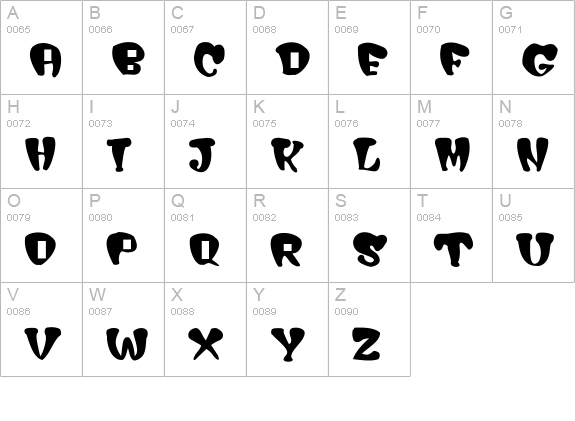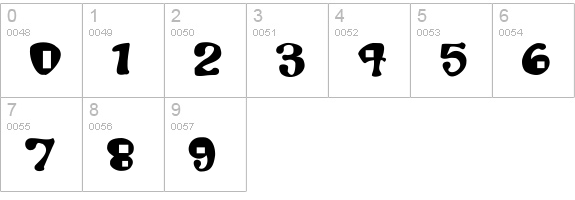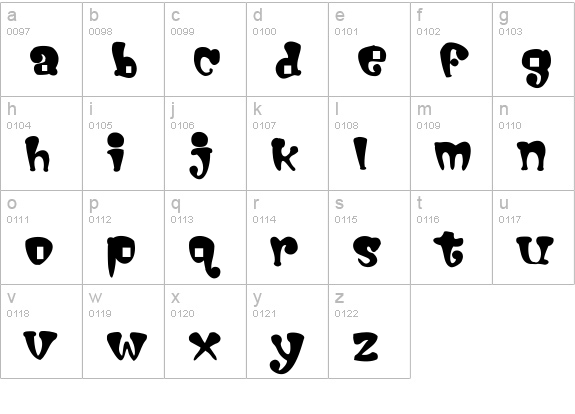
Cigarstore font is a stylish and versatile typeface that exudes a classic charm. With its elegant curves and vintage-inspired design, this font is perfect for adding a touch of sophistication to any project. Whether you're creating invitations, branding materials, or signage, Cigarstore font will elevate your designs to the next level. And the best part? Cigarstore font is available for free download at FontsMarket.com! So you can easily access this stunning font and use it in your projects without any additional cost. Don't miss out on this opportunity to enhance your designs with the timeless appeal of Cigarstore font. Download it now and start creating beautiful typography today!